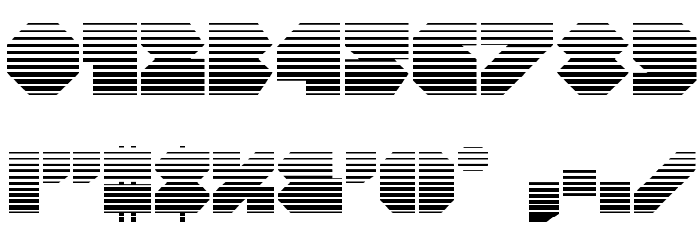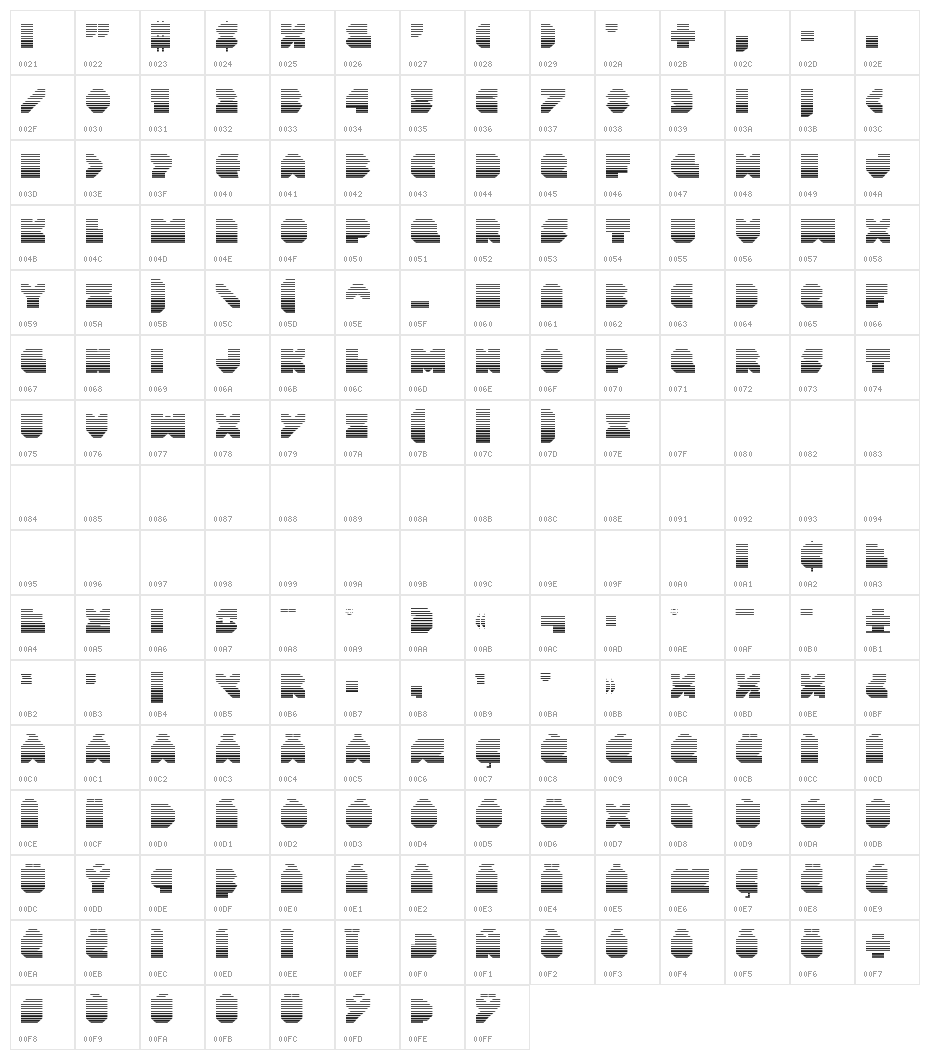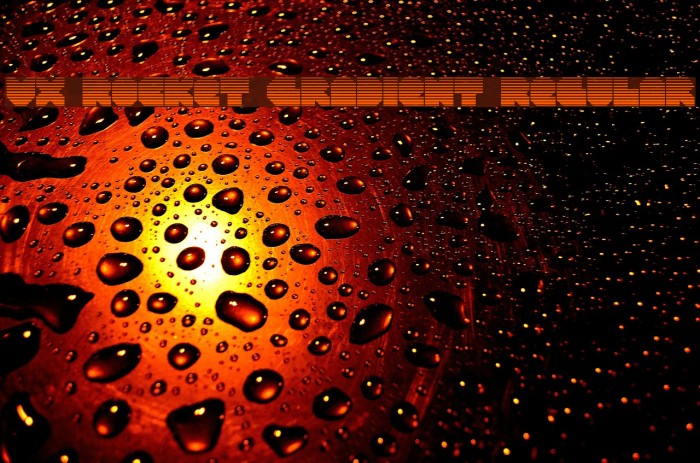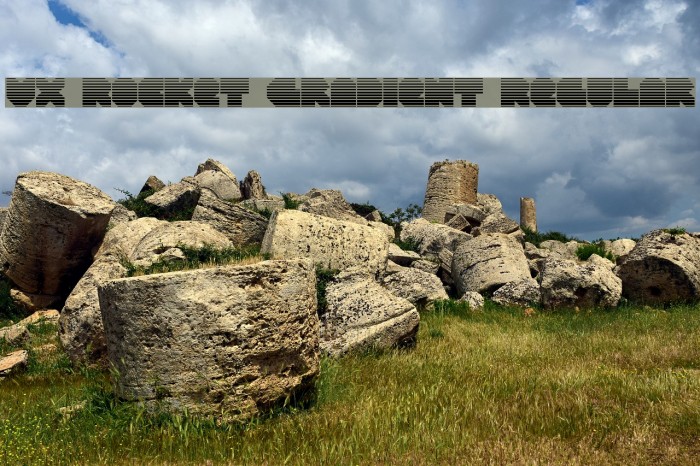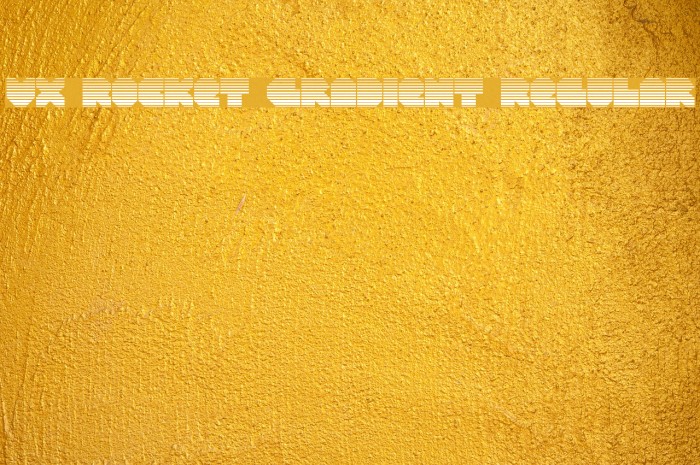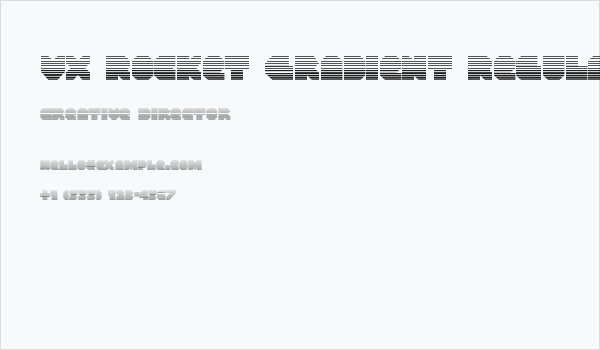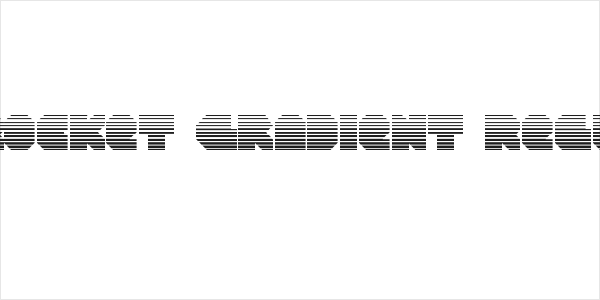
VX Rocket Gradient Regular Font
VX Rocket Gradient Regular Description
This font features a bold, futuristic design with a unique gradient effect created by horizontal lines. Each character is composed of evenly spaced horizontal stripes, giving it a dynamic and modern appearance. The uppercase and lowercase letters maintain a consistent style, with a strong geometric influence. Numbers and special characters are also designed with the same striped pattern, ensuring uniformity across all glyphs. The overall look is striking and eye-catching, making it suitable for projects that require a bold statement.
Proposed ProjectsIdeal for sci-fi themed posters, video game titles, tech branding, and modern advertising campaigns.